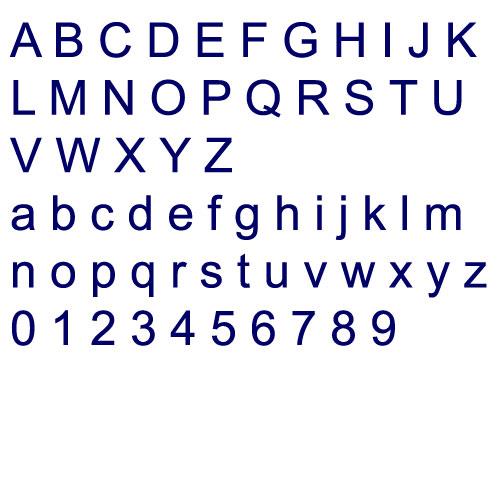
Fireside Threads is happy to present Arial Embrilliance machine embroidery font which has Classic block style machine embroidery font, ideal for creating bold labels or professional branding on items like tote bags. Available in BX font and Embrilliance formats. included. If you would like to view more embroidery fonts and alphabets please search our embroidery fonts page.